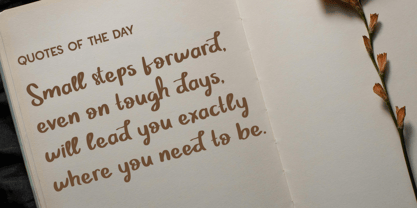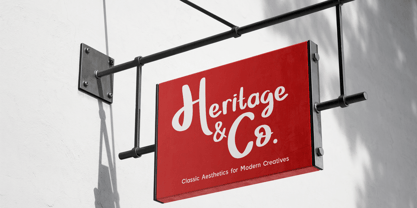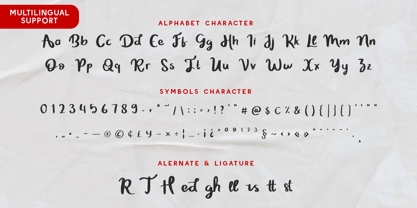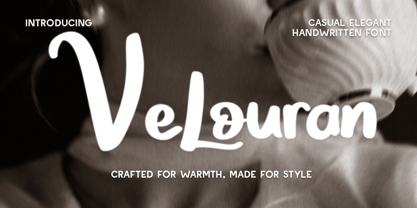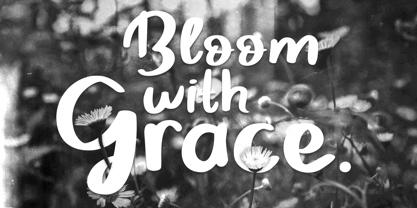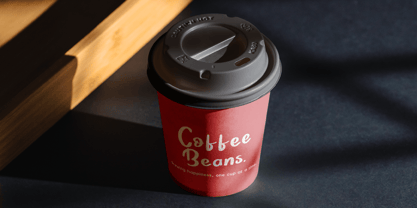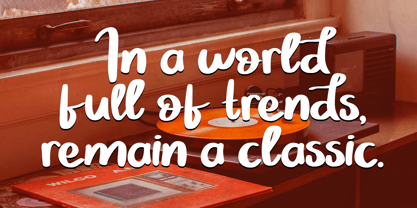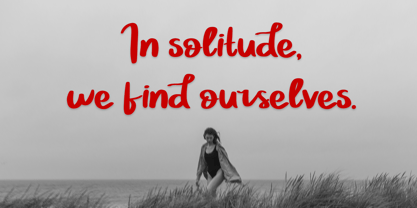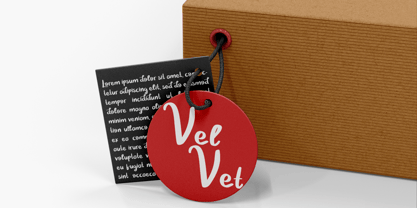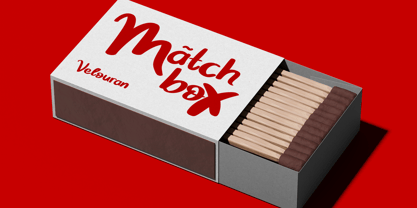
Velouran
by Indotype
The Velouran Font Family was designed by Gilang Mei Nugraha, Frederik Aristaputra and published by Indotype. Velouran contains 1 styles. More about this family
Velouran is a beautifully crafted handwritten font that combines casual elegance with dynamic, graceful strokes. Each letter flows naturally, with smooth curves and delicate lines that bring a warm, inviting feel to the text. The slightly varied, organic shapes give it a personal touch, while its refined structure maintains readability and style. Velouran is perfect for projects that aim to feel both stylish and heartfelt, from branding and social media to wedding invitations and heartfelt quotes. With its effortless blend of beauty and charm, Velouran is designed to make every word feel special and genuine.
• Standard Character A-Z, a-z, 0-9, Punctuation & symbols
• Regular Elegant Style
• Multilingual Support
Designers: Gilang Mei Nugraha, Frederik Aristaputra
Foundry: Indotype